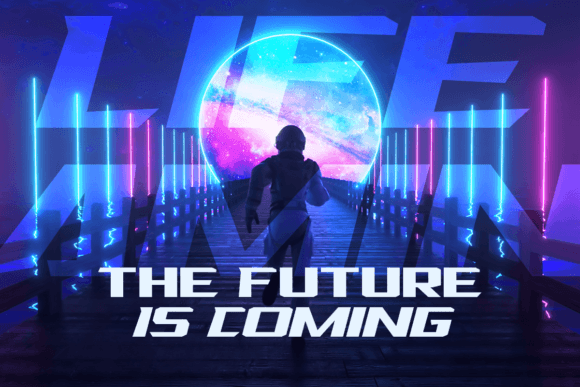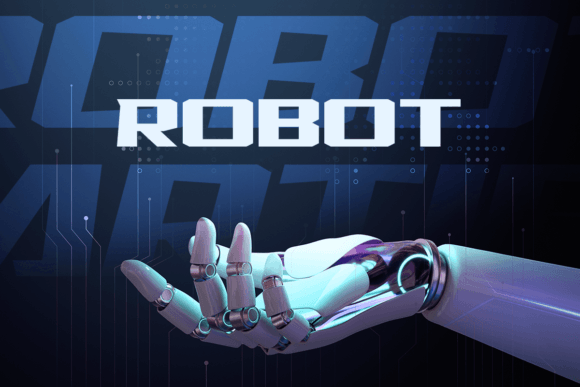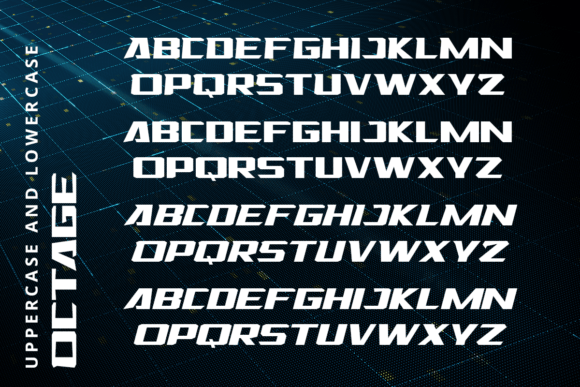
Introduction to Octage Font
Remember that moment when you were brainstorming ideas for your latest creative project, and you just couldn’t find the right font to bring it all together? You scrolled through countless options, but nothing seemed to capture the essence of your vision. That’s where the Octage Font comes in – a game-changing design resource that’s about to revolutionize your creative process.
With its sleek, futuristic vibe and minimalist style, the Octage Font is the perfect addition to any project that needs a touch of sci-fi or technology. Whether you’re designing logos, labels, posters, packaging, or even a movie title sequence, this high-quality font is sure to elevate your work to the next level. And the best part? It’s available for free download, making it an accessible and valuable resource for designers of all levels.
- High-quality design: Octage Font is designed to provide a unique and creative touch to any project, making it an ideal choice for designers and artists.
- Perfect for creative projects: Whether you’re working on a logo, poster, or brochure, Octage Font is an excellent choice for adding a touch of elegance and sophistication to your design.
- Design resource for professionals: Octage Font is a valuable resource for designers, artists, and creatives, offering a unique and high-quality font that can elevate any project.
Honest Review: Octage Font
I recently had the chance to work with the Octage Font, and I must say it’s been a game-changer for my creative project. The moment I laid eyes on it, I knew I had to give it a try.
Here are some of the things that stood out to me: ✨ High-quality glyphs that made my design look professional and crisp. ✨ The ability to use a transparent background, which gave me so much flexibility in terms of layout and design. ✨ A free download option, which was a huge plus for a budget-conscious designer like myself.
Here are some potential limitations: ⚠️ Limited character set – while it’s not a deal-breaker, it would be great to see more characters added to the font. ⚠️ Not suitable for complex text layouts – the font looks great for headlines and titles, but might not be the best choice for body text.
Overall, I’m really impressed with the Octage Font. It’s a fantastic addition to any designer’s toolkit, and I would definitely recommend it to anyone working on a creative project. Whether you’re looking for a high-quality font for a free download or just need something to spice up your design, the Octage Font is definitely worth checking out.
- High-quality glyphs
- Great for creative projects and design resources
Designing with Octage Font
When using Octage Font, consider the high quality and transparent background to create a visually appealing design. Use the font in a creative project to add a unique touch. Experiment with different font sizes and styles to achieve the desired effect.
Use the font in conjunction with other design elements, such as images and graphics, to create a visually appealing design. Experiment with different font combinations to find the perfect balance.
Common Use Cases for Octage Font
Octage Font is suitable for a wide range of creative projects, including logos, brochures, business cards, and social media graphics. The font’s high quality and transparent background make it an ideal choice for designers looking to create professional-looking designs.
Q: Does the Octage Font have a transparent background?
Yes, the Octage Font has a transparent background, making it ideal for use on images or backgrounds with varying levels of opacity. This allows designers to create visually striking and creative designs that showcase the font in its full glory.